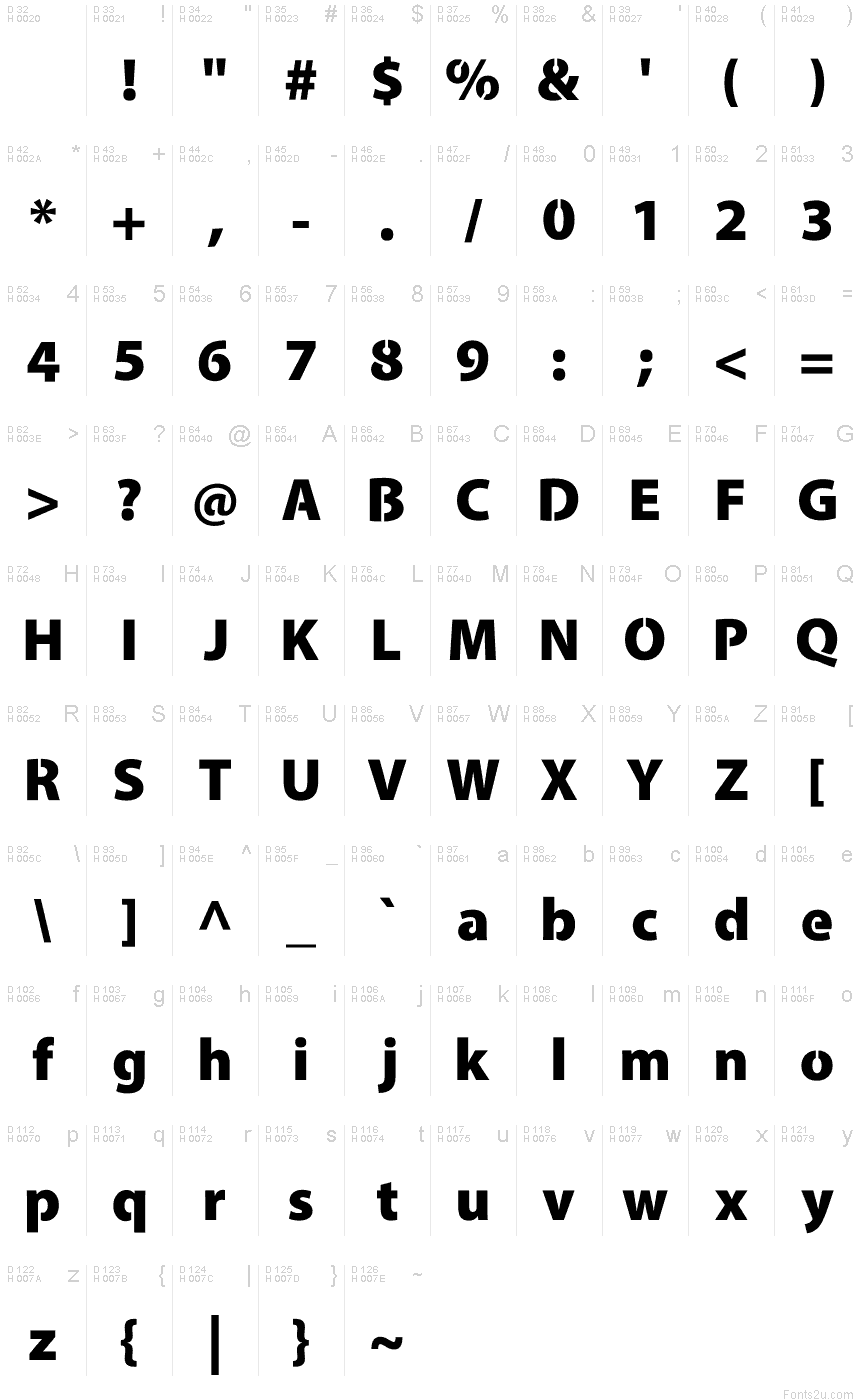
Cleanvertising Black is a free heavy sans serif display font with broad, compact forms and an emphatically dark silhouette. Its strokes stay largely uniform, but softly rounded curves and tight internal spaces keep the lettering from looking strictly geometric.
Poster design is its most convincing setting, especially for punchy cultural or retail messages built around lettering with immediate visual weight. The same blunt shapes suit music merchandise and bold food packaging. Across these uses, the close-set proportions and oversized curves let the type function almost like a solid graphic block and tie printed matter and products to simple, hard-edged imagery.